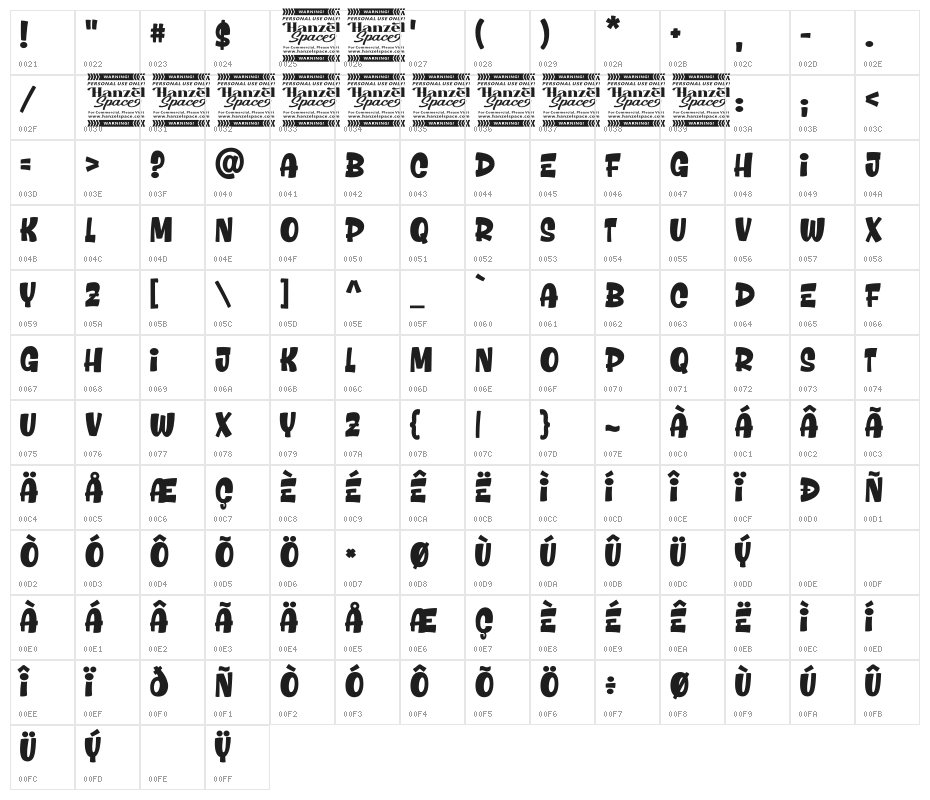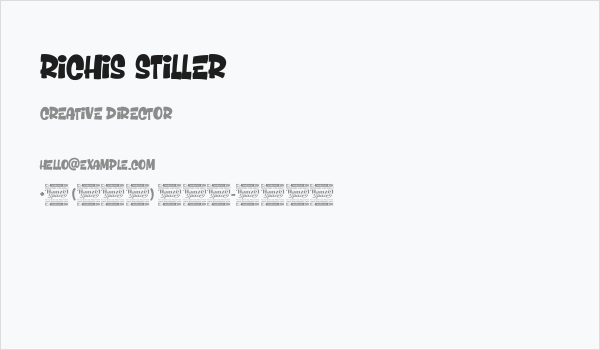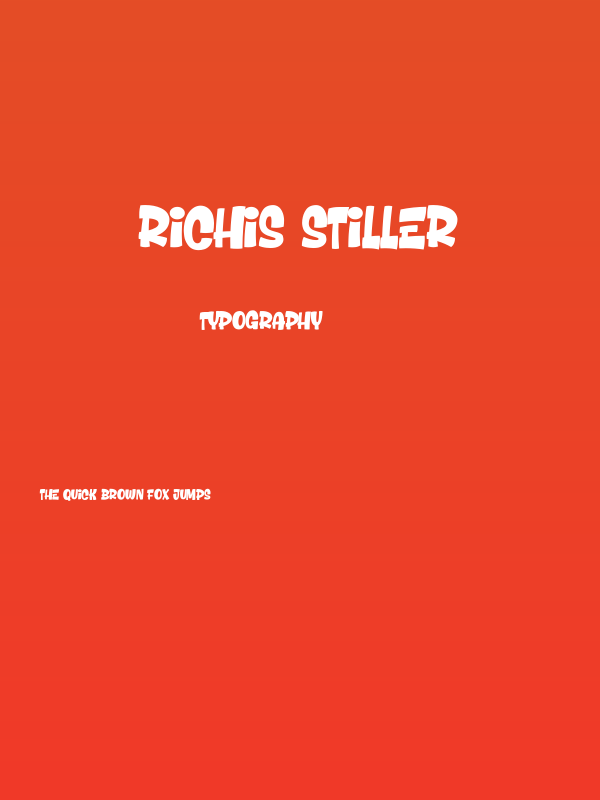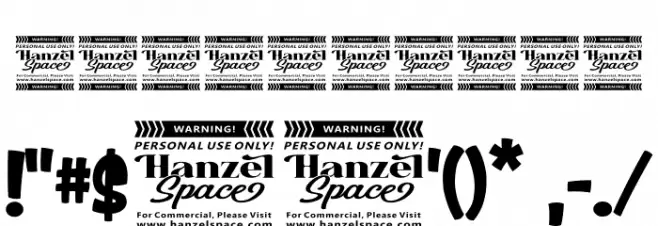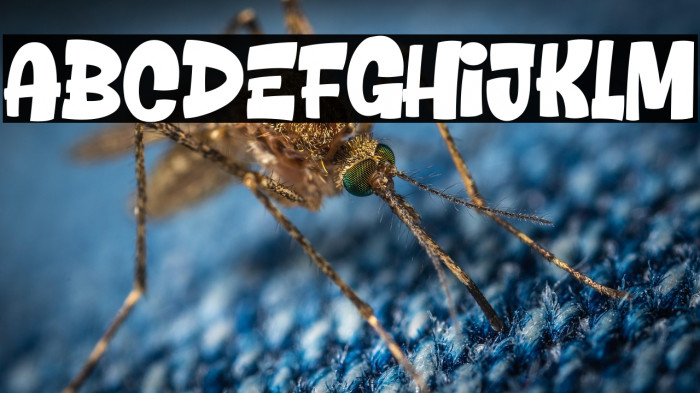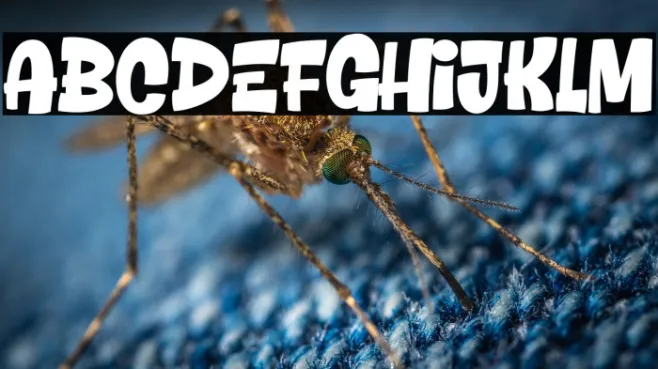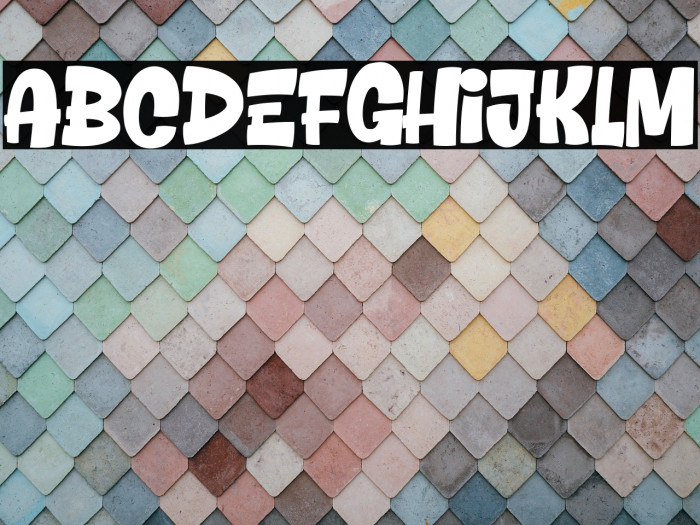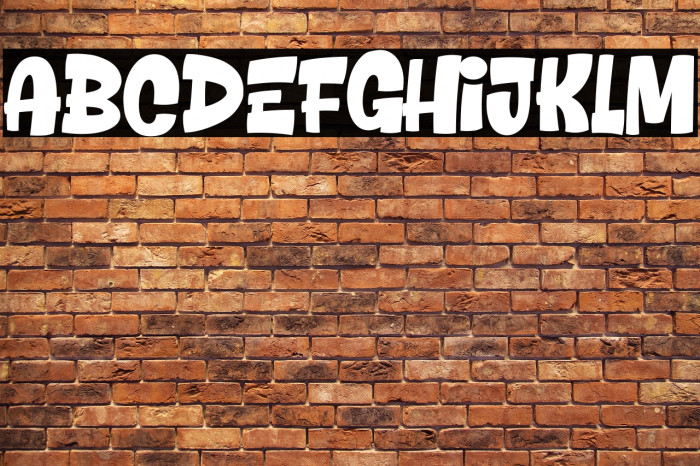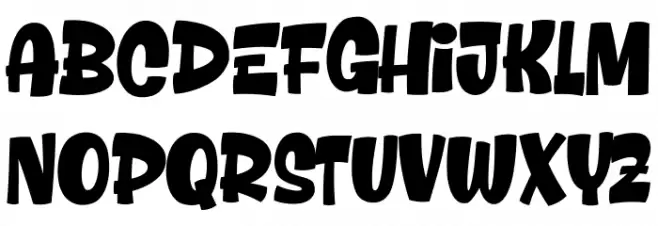
Richis Stiller Font
Richis Stiller Description
This font features a bold and playful style with thick, rounded strokes that give it a lively and energetic appearance. The characters are slightly condensed, adding to the compact and robust feel. The uppercase and lowercase letters maintain a consistent weight, contributing to a cohesive look. The font includes a full set of numerals and a variety of special characters, making it versatile for different design needs. Its high contrast and unique character shapes make it stand out, ideal for eye-catching designs.
| Overall Style | Playful, Energetic |
| Proposed Projects | Perfect for children's book covers, playful branding, posters, and merchandise designs. |